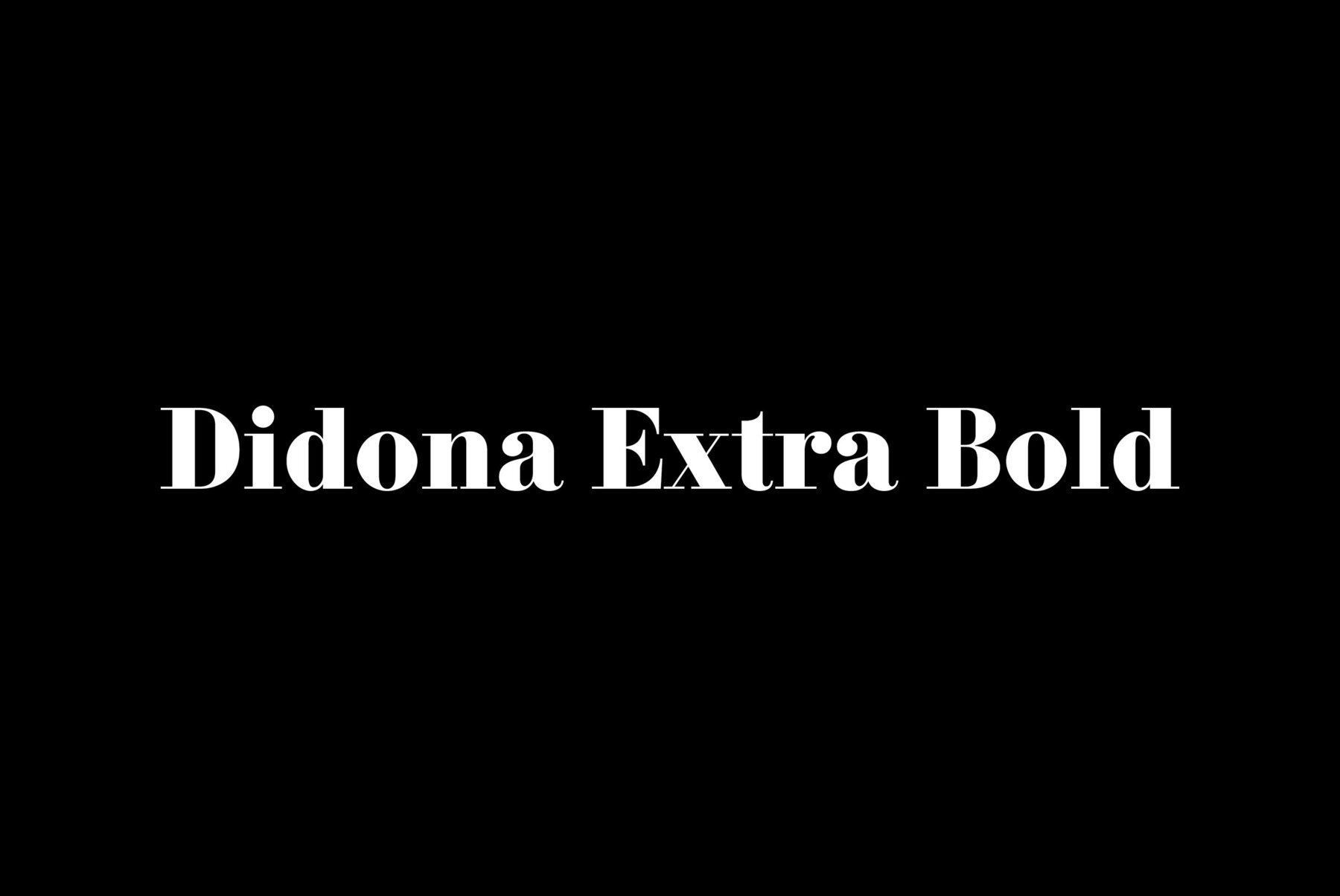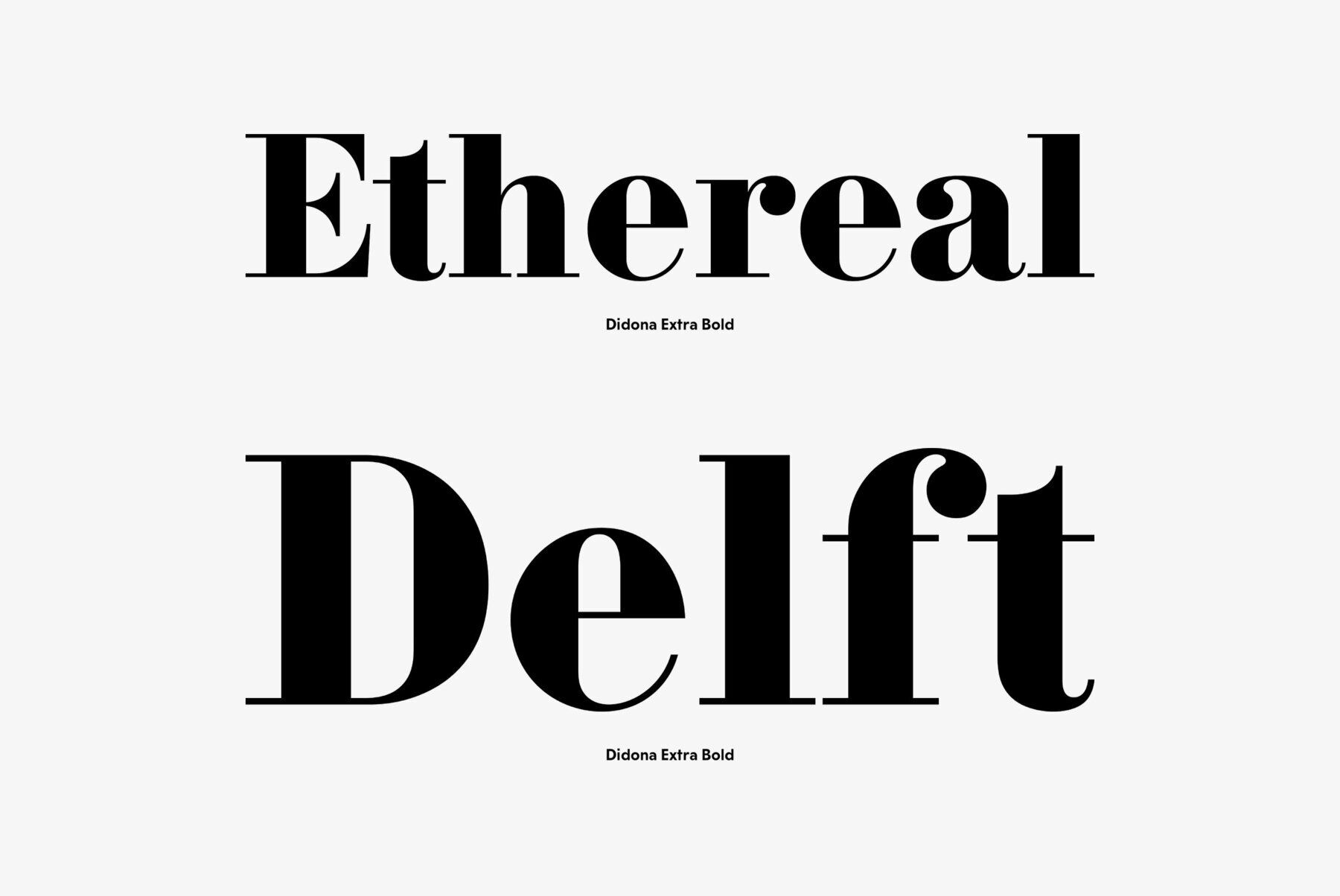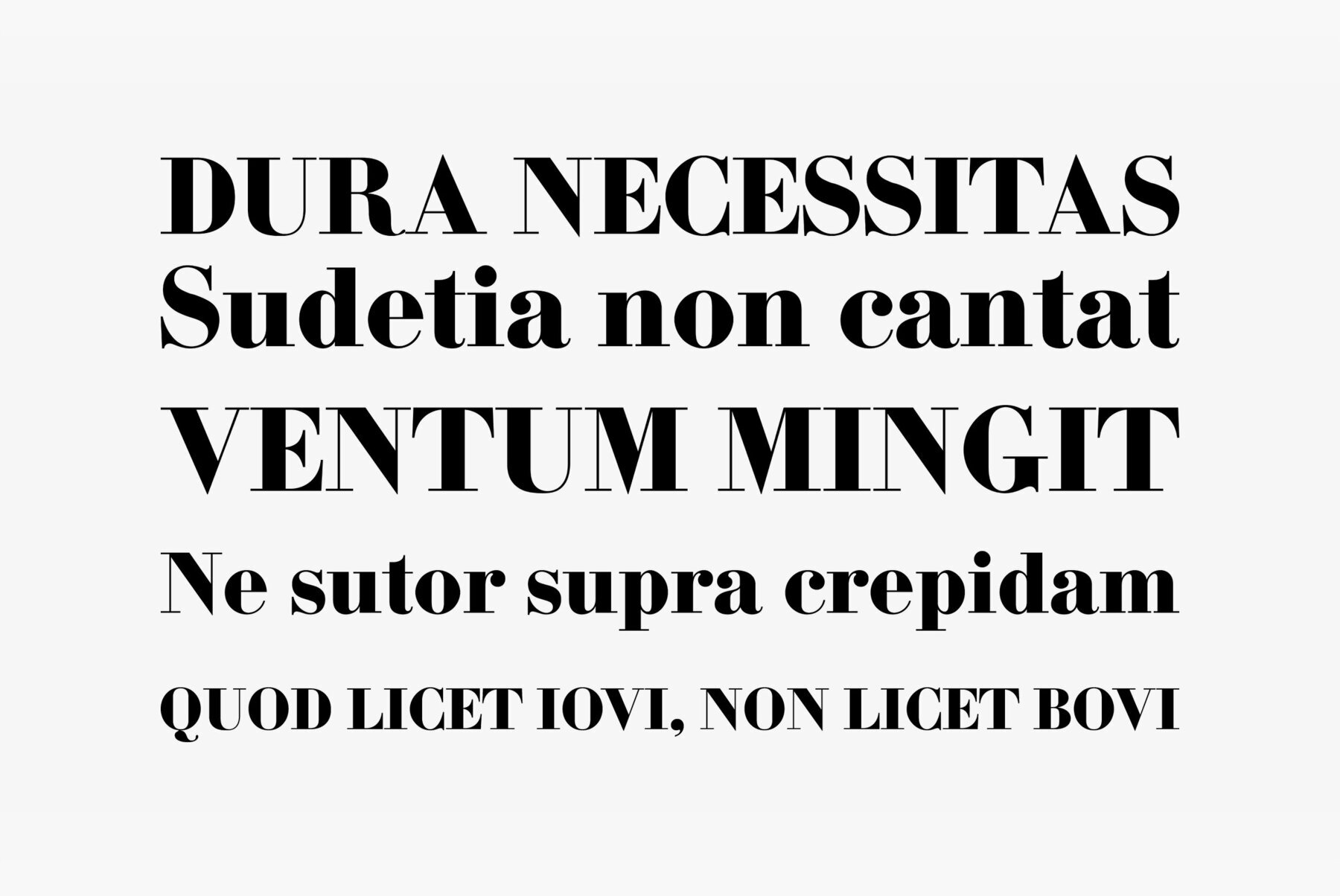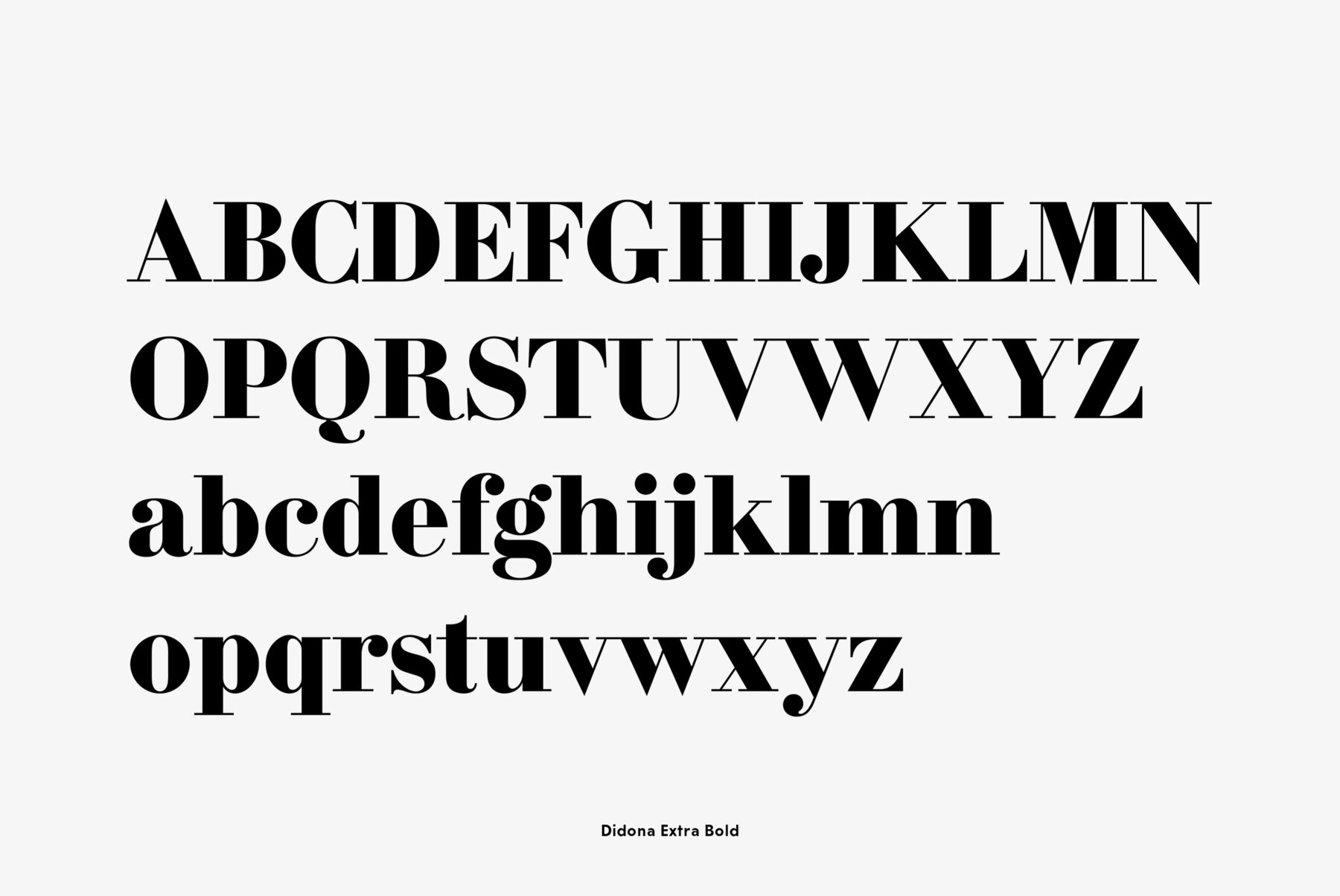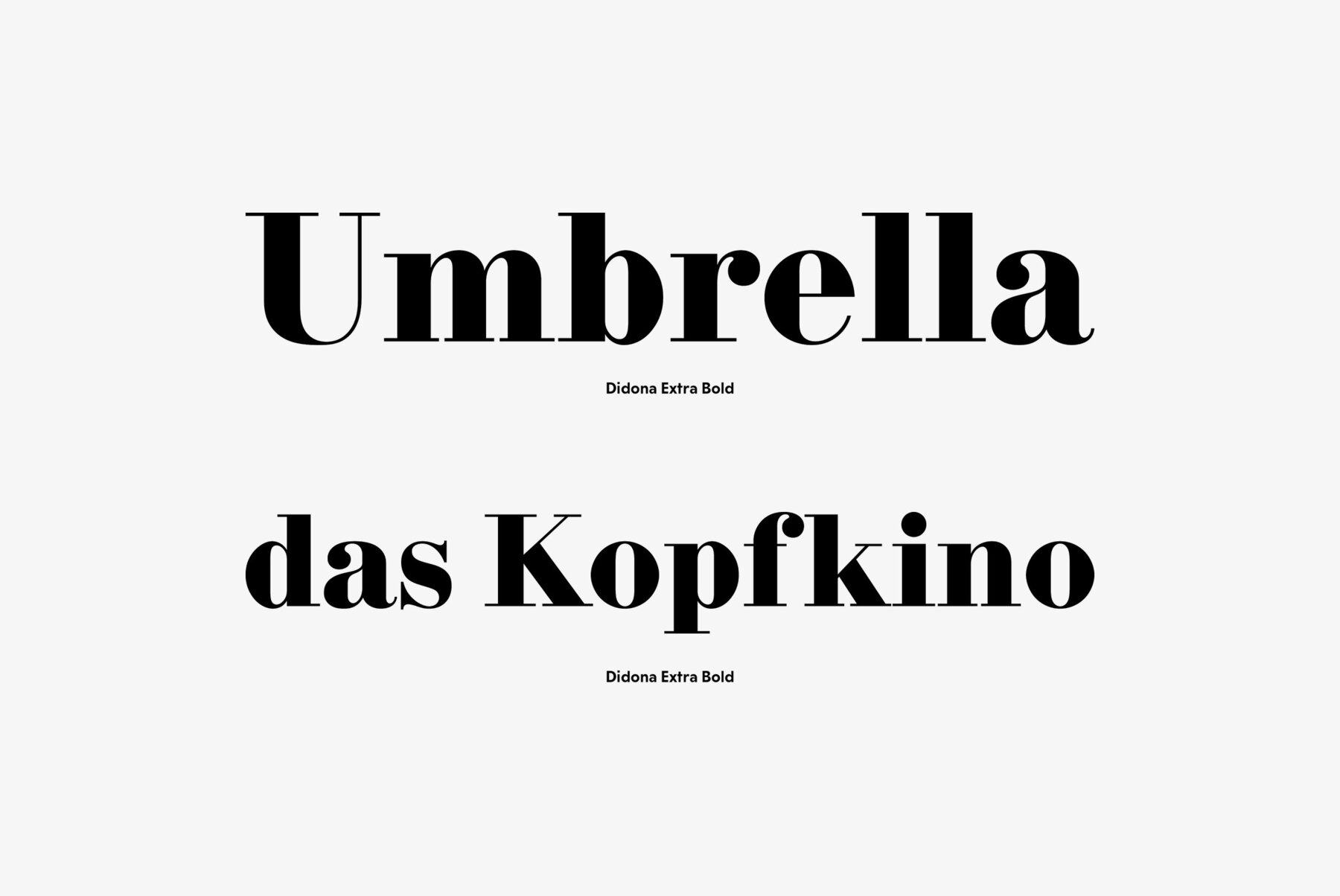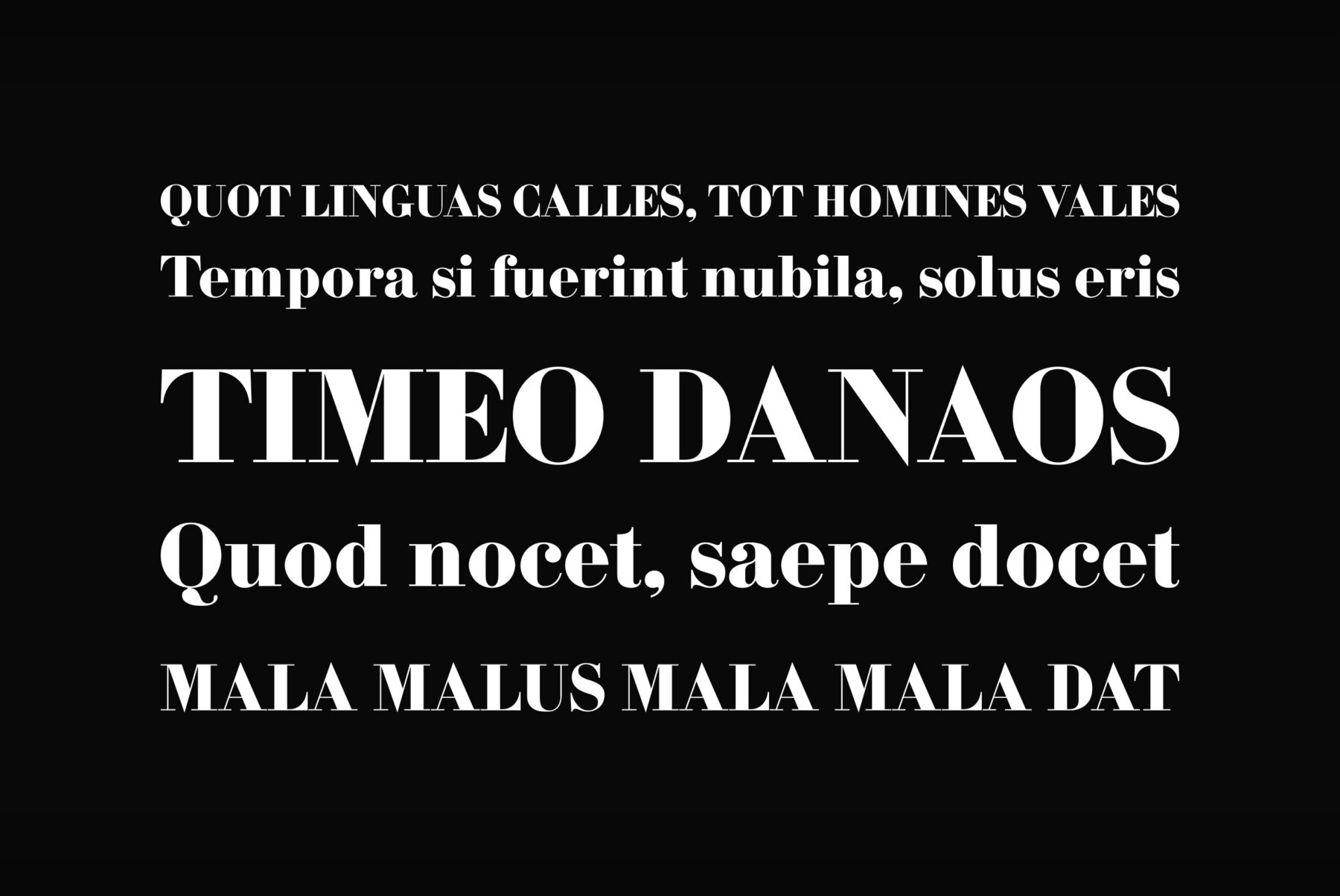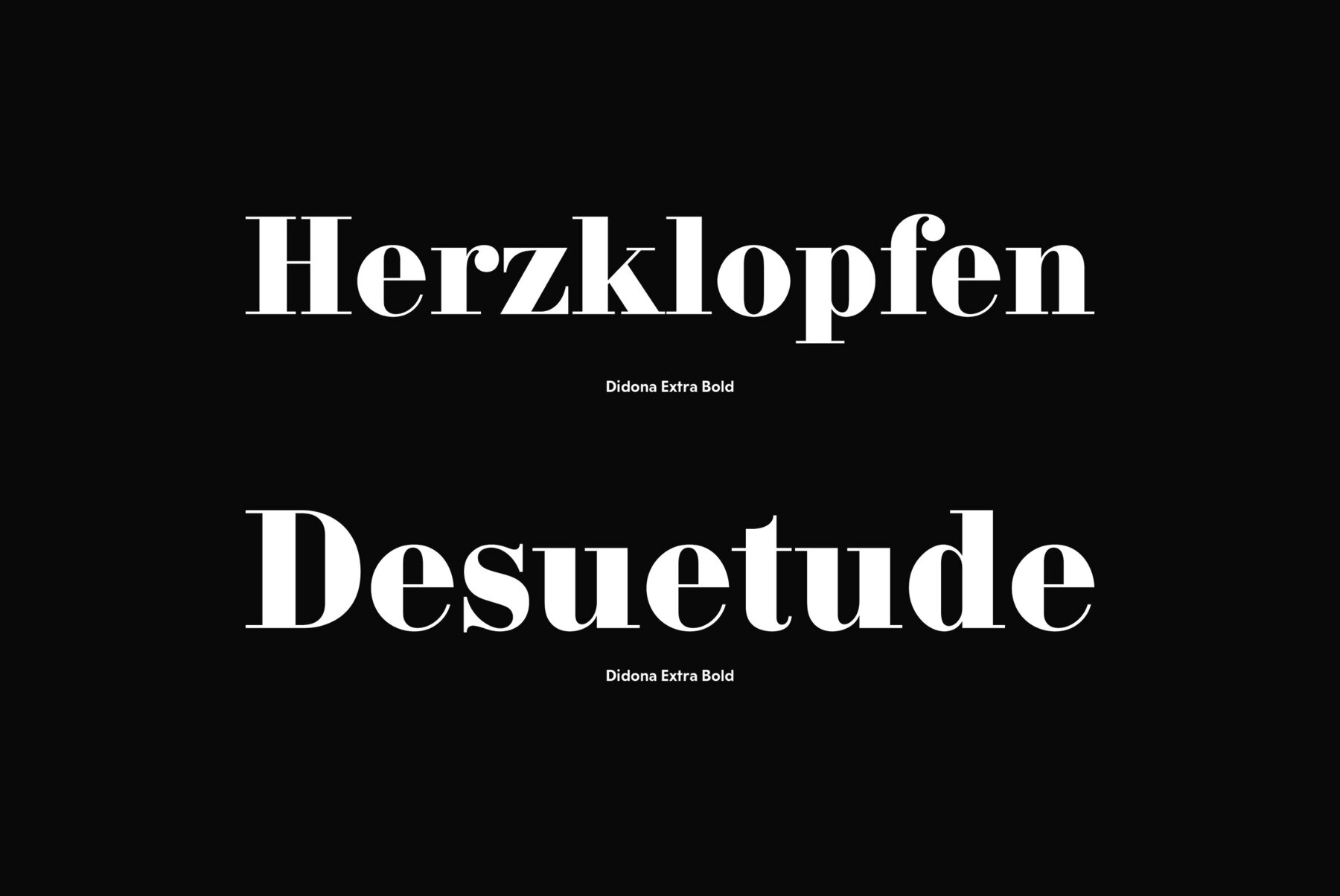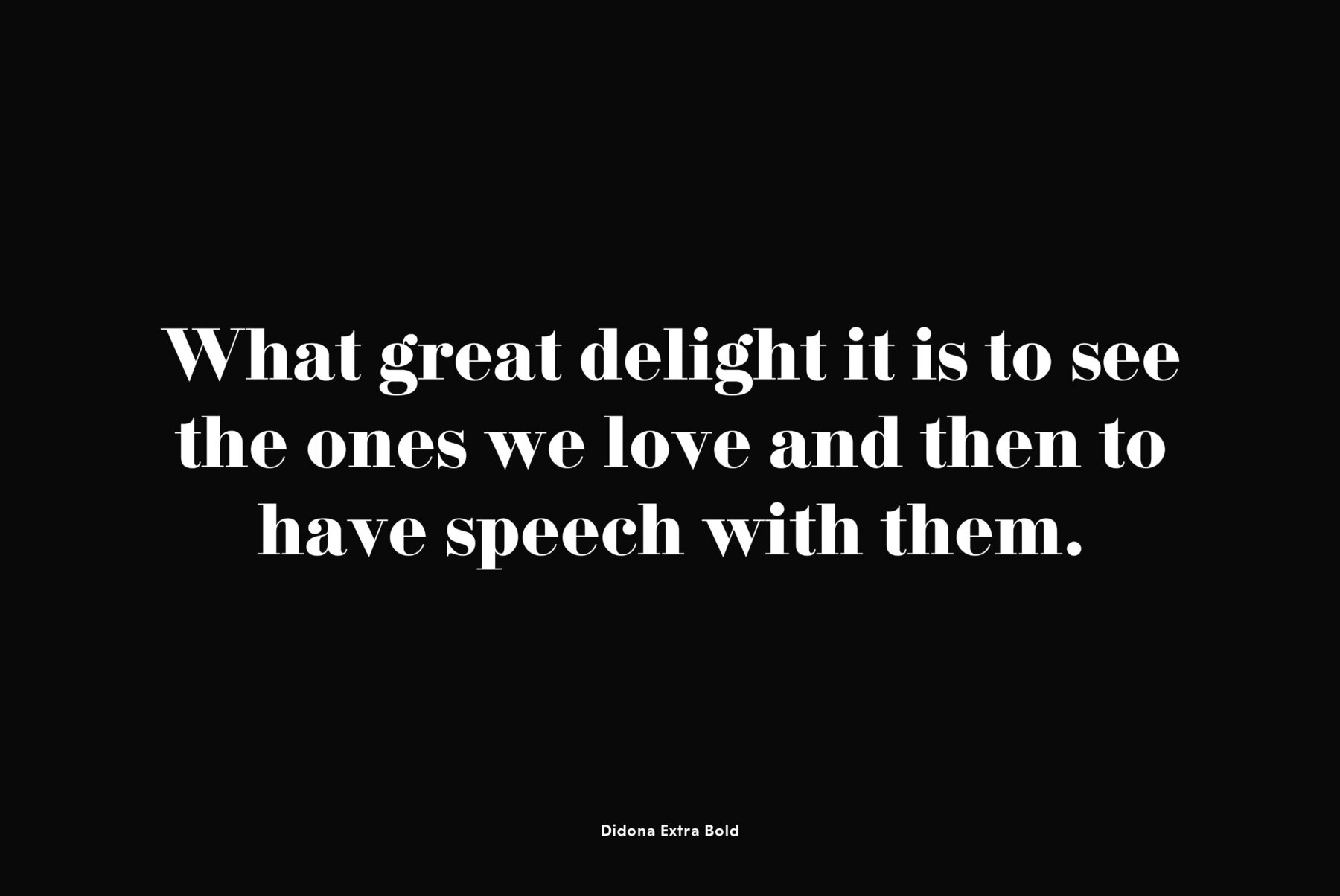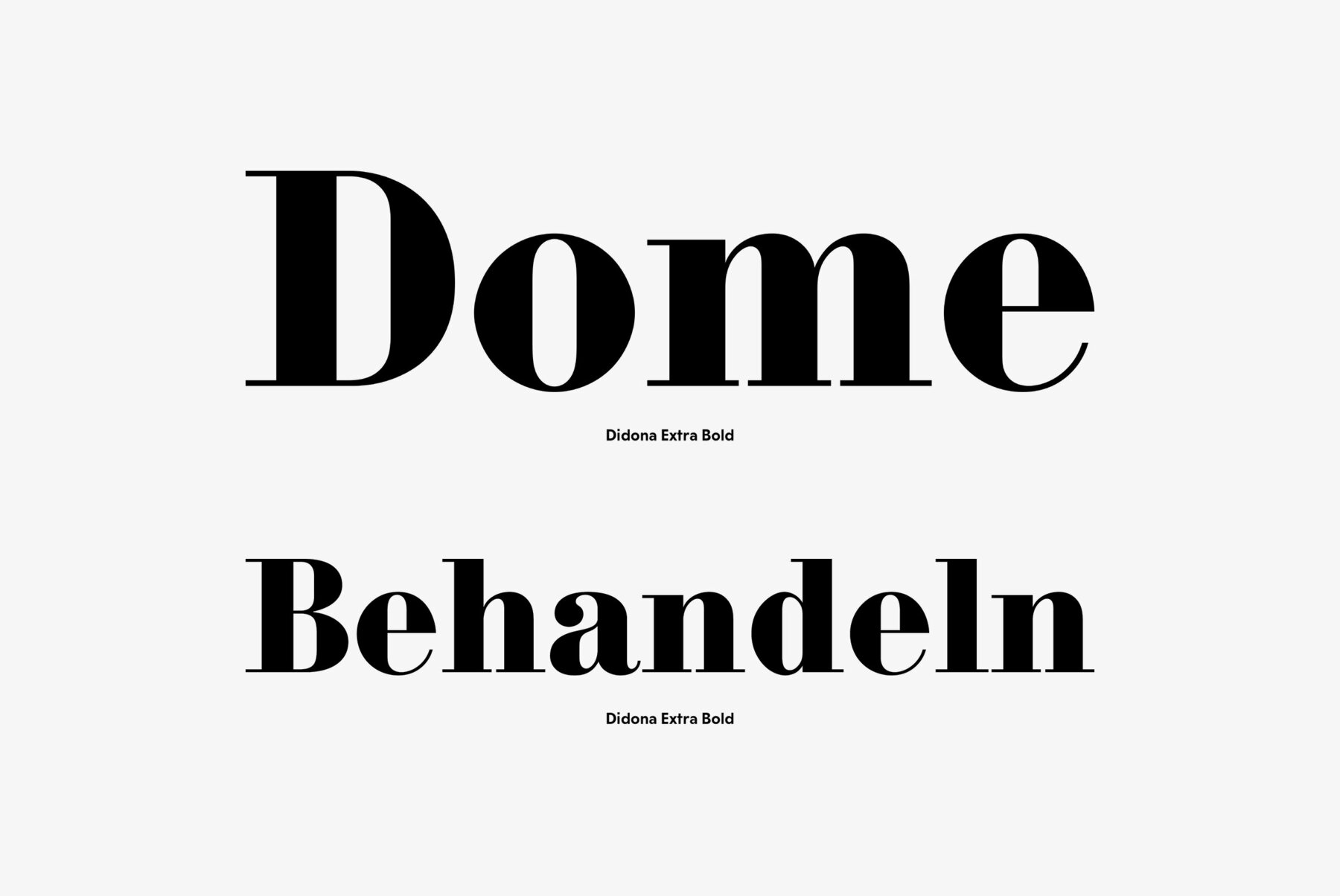
Didona Extra Bold
Designed at ParaType (ParaGraph) in 1992 by Vladimir Yefimov. Based on letterforms of Firmin Didot, a French typographer from the 18th century, ITC Didi, of 1970, by Herb Lubalin and Tom Carnase, and Russian typefaces of the 18th-19th centuries. A little extragerrated decorative stylization of letterforms in the spirit of Modern Serif, with elements of an irony. For use in headlines, in advertising and display typography. Improved and added with Extra Bold, old style figures, ligatures and other symbols in 2010 by the same author.